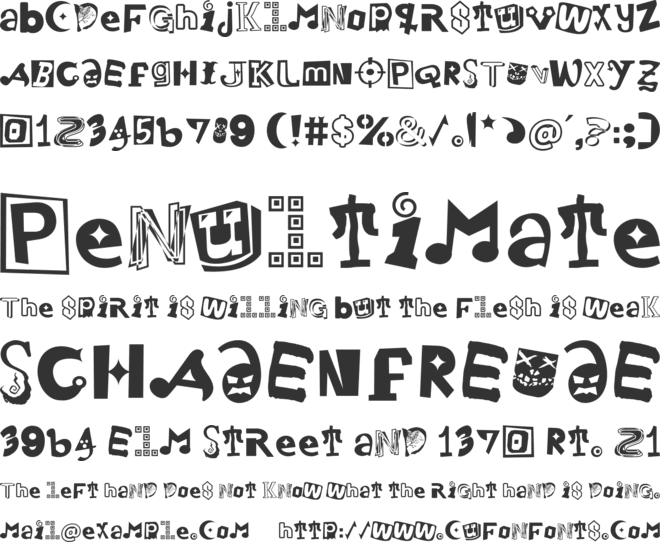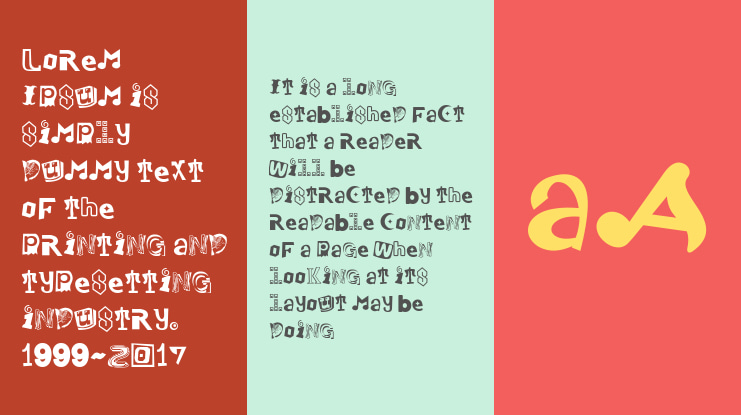
Blueberry Hills Proxee Font
Blueberry Hills Proxee is the newest installment of the Blueberry Hills series of ransom note fonts by me in years since Blueberry Hills 3. It has some of its features unique to this installment including Turkish and Hungarian support, a "Cool S" graphic on lowercase 'S' dingbats of Papple getting mad and Ruru Amour crying, the "LET'S PARTY!" symbol and Sylistic Alternates for uppercase 'E', lowercase letters 'r' and 'c' and the number 4, marking a grand comeback in nearly 6 years. It's the most PreCure-induced font in the series you've ever saw!
NOTE ON FONT NAMING:
I had to rename the font because I had to avoid the number 4 in the font name, as "four" sounds like "death" in some Asian languages, such as Mandarin Chinese (including Taiwanese Mandarin), Cantonese (specifically in the Special Administrative Regions of Hong Kong and Macau), Vietnamese (all those are actually pronounced with different tones), Korean and Japanese (both pronounced the same, the latter is often pronounced as "yon" to differentiate with the Japanese word for "death").